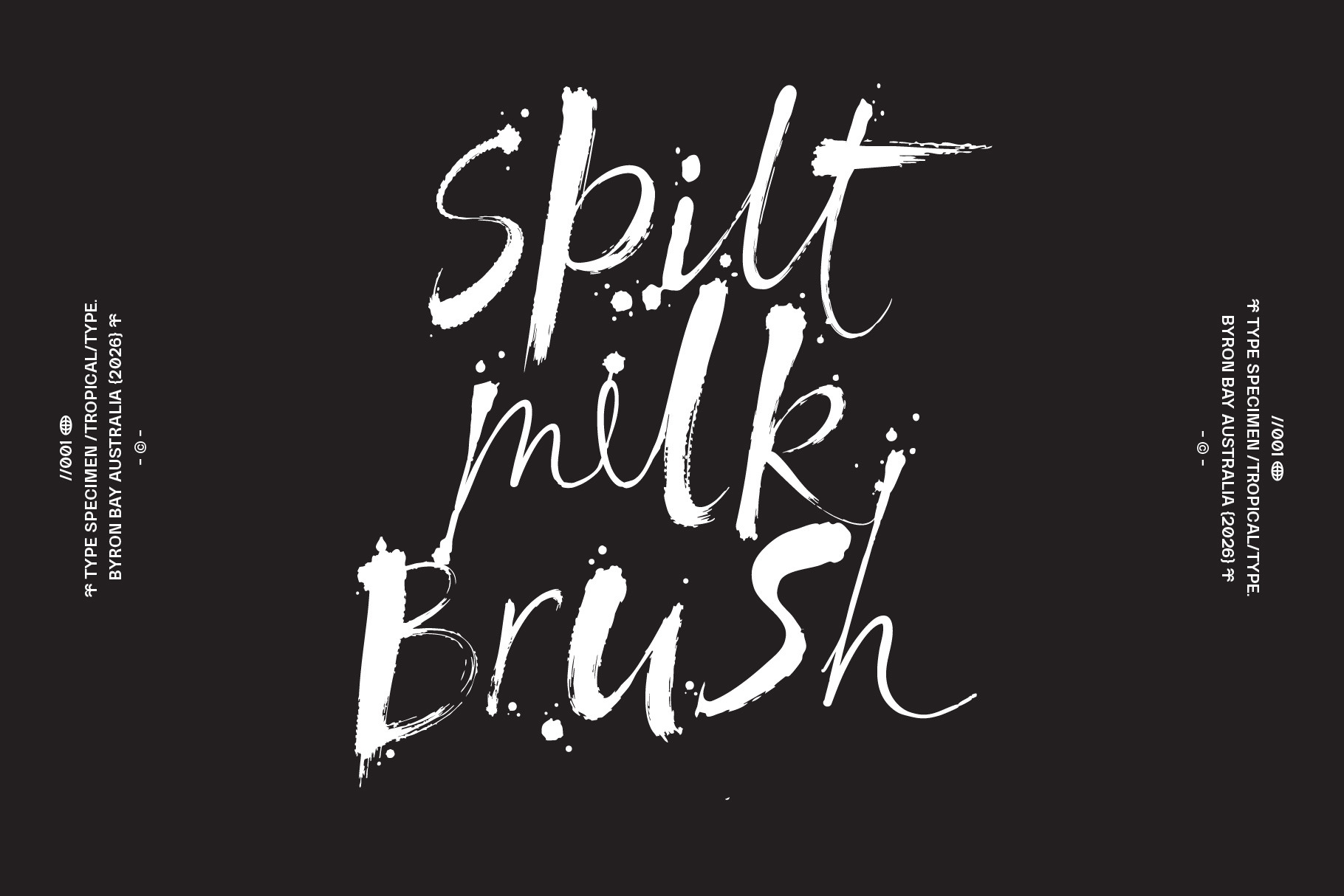
Spilt Milk Brush Font
Spilt Milk is a mess! - in the best possible way. You're either going to love it or hate so i'm not even going to try sell it to you.....except that is has 58 ligatures and alternates for every letter so have fun mix and matchings painted brush lettering to get all sorts of interesting looks. Enjoy.
Non English glyphs included: ą,á,â,à,ä,å,ã,æ,ć,ç,ę,é,ê,è,ë,í,î,ì,ï,ı,ł,ñ,ń,ó,ô,ò,ö,õ,ø,œ,ś,š,ß,ú,û,ù,ü,ý,ÿ,ž,ź,ż Ą,Á,Â,À,Ä,Å,Ã,Æ,Ć,Ç,Ę,É,Ê,È,Ë,Í,Î,Ì,Ï,Ł,Ń,Ñ,Ó,Ô,Ò,Ö,Õ,Ø,Œ,Ś,Š,Ú,Û,Ù,Ü,Ý,Ÿ,Ź,Ż